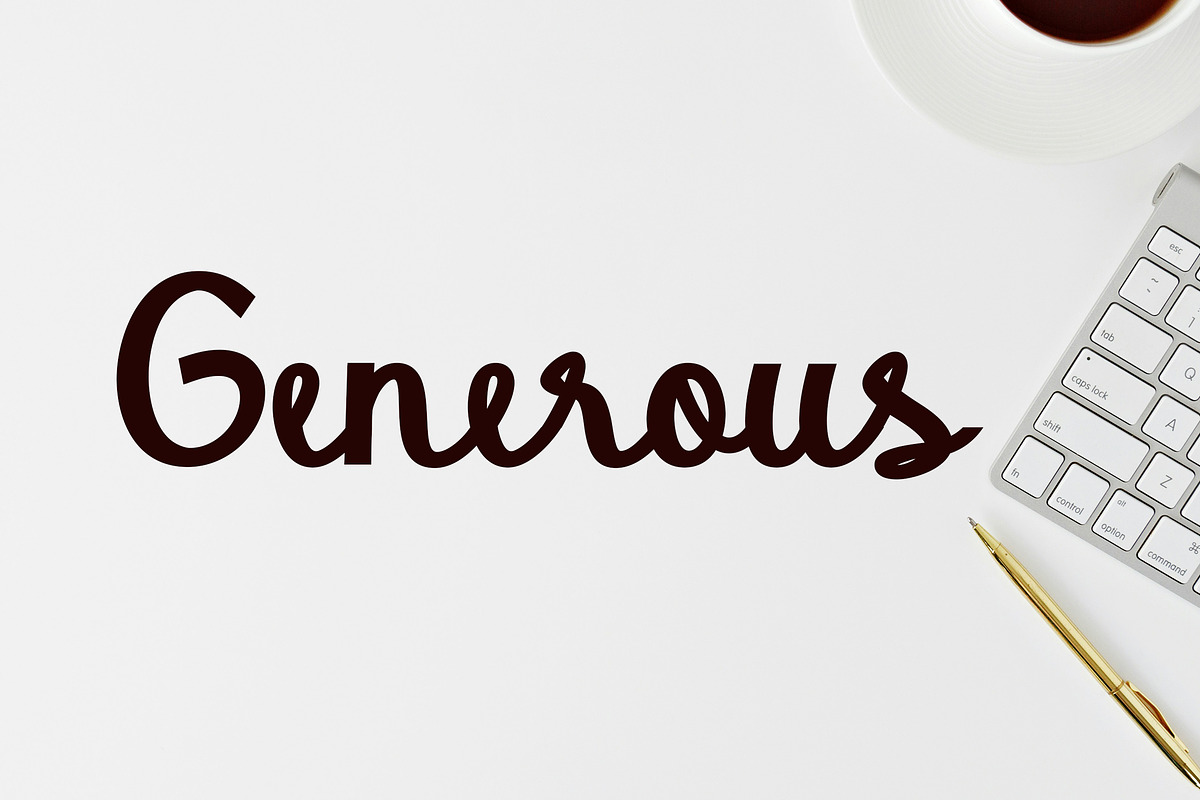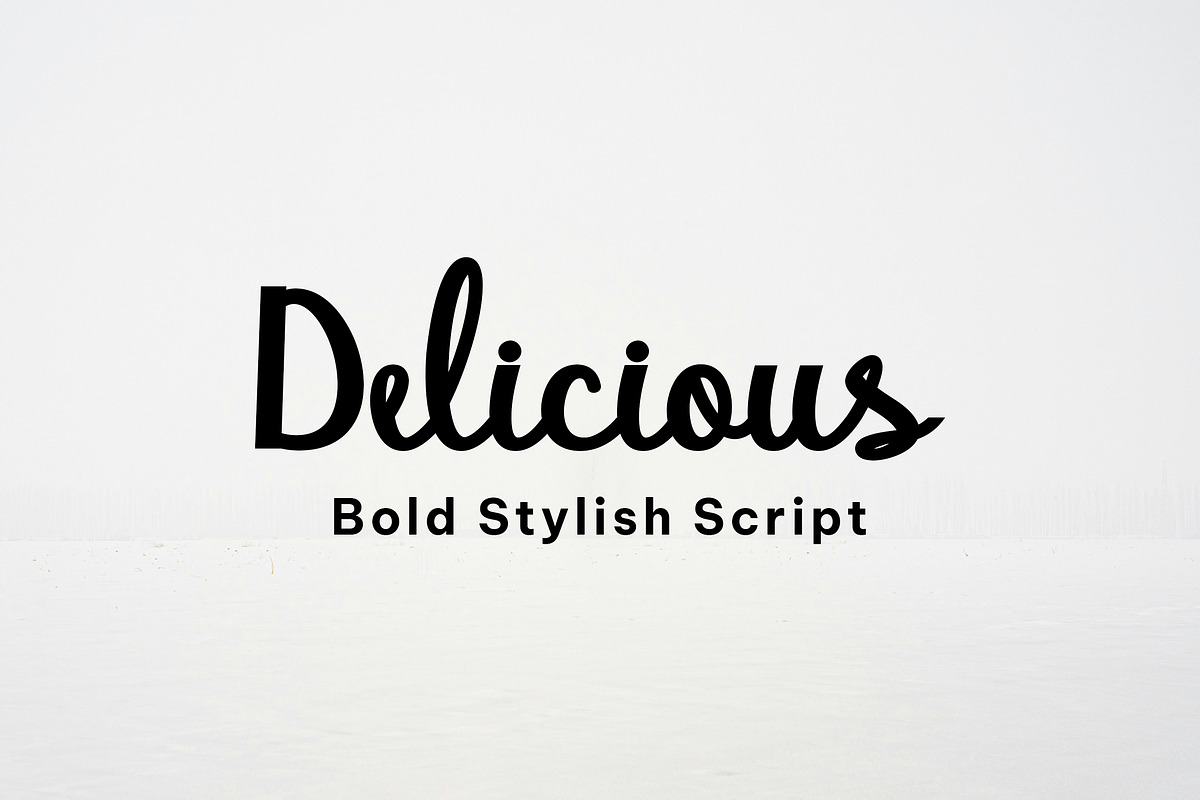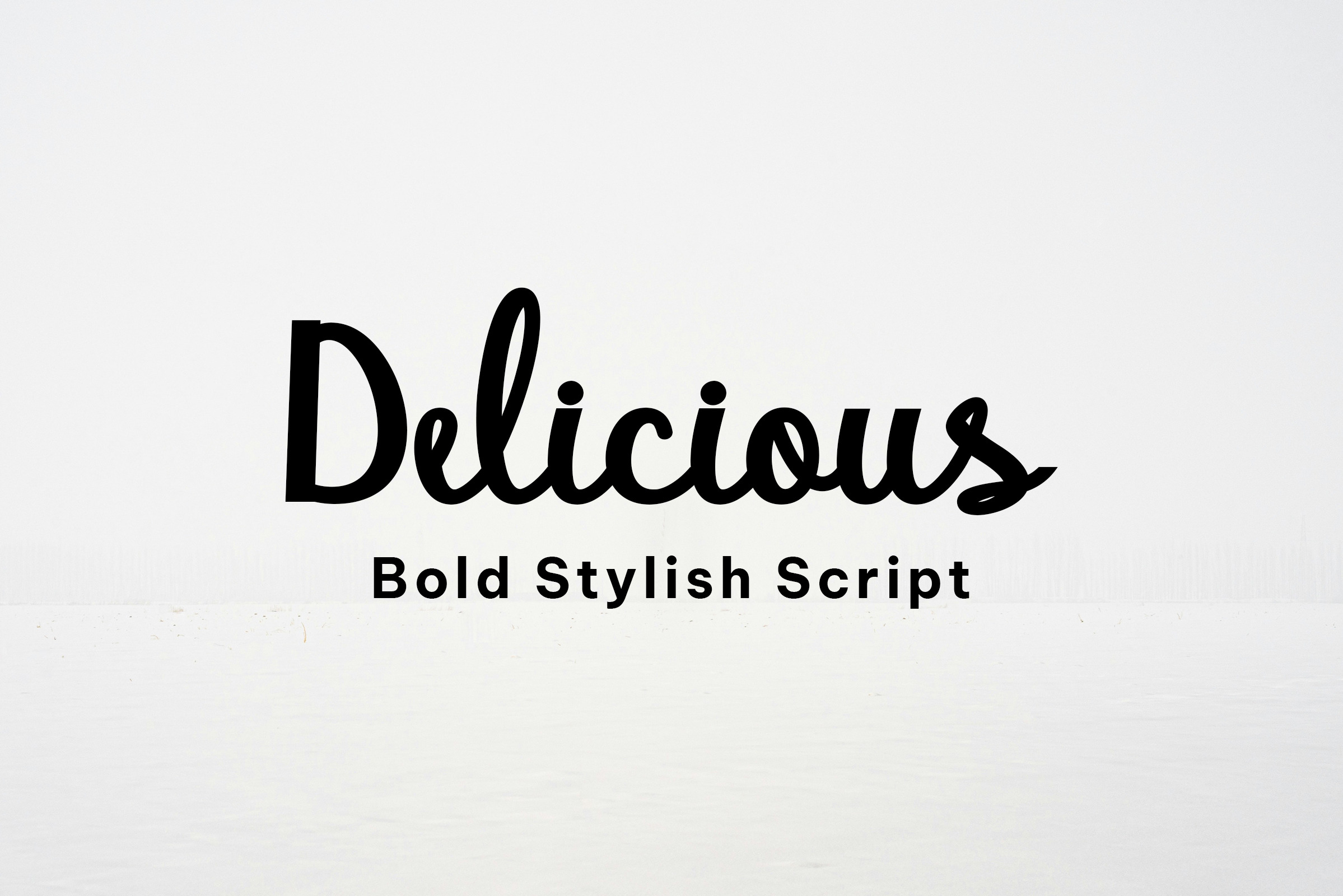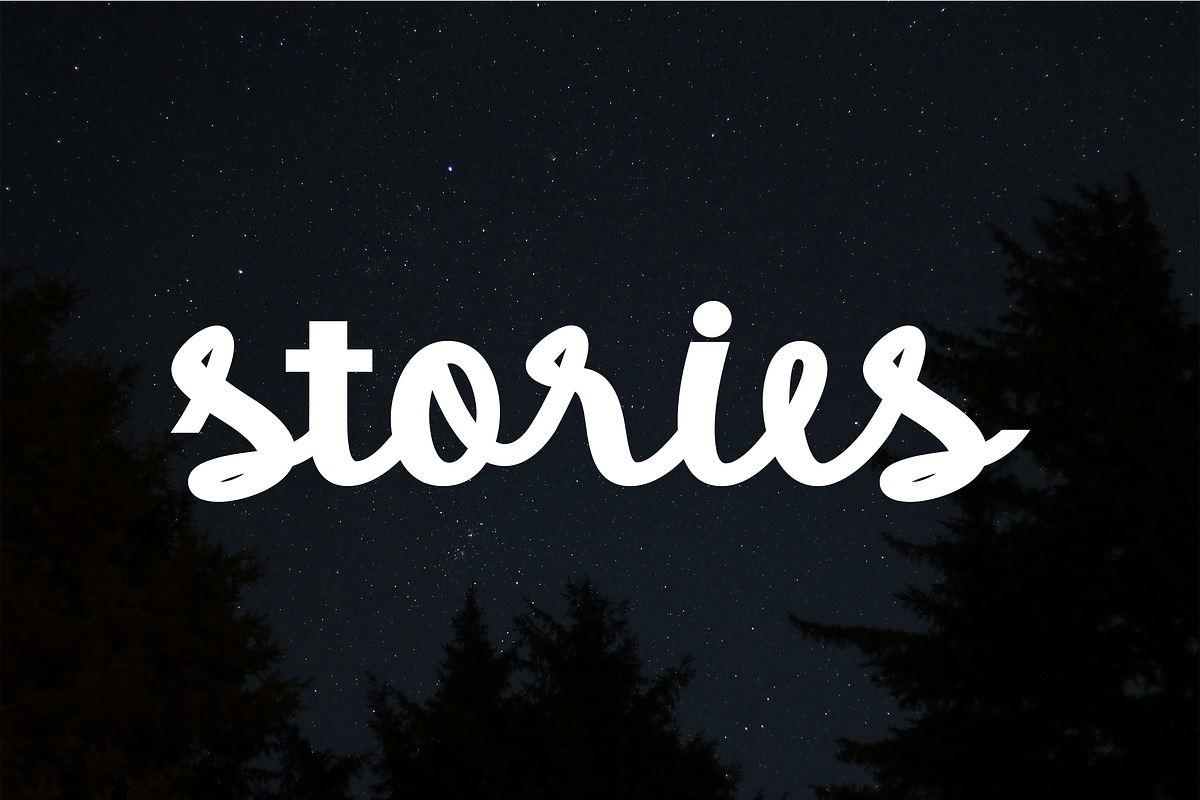
Delicious //elegant script font
Delicious is an elegant script font featuring a beautiful character variation. This font combines a classic style with a modern touch, designed with great attention to detail for an elegant look. This product was created to help you make your digital images even more beautiful and unique.